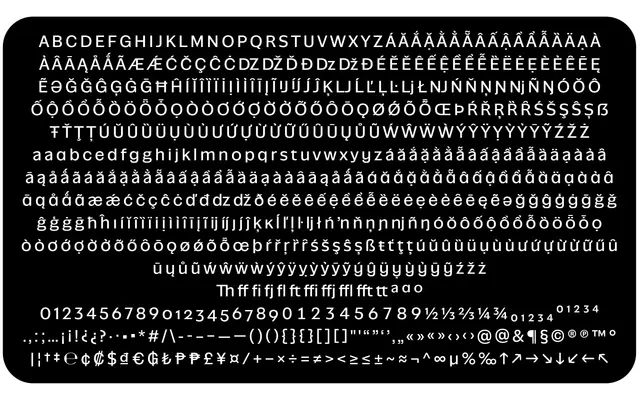
NaN SuperX Sans
NaN · Hugues Gentile, Fanny Hamelin, Fadhl Haqq, Léon Hugues, Jean-Baptiste Morizot, Luke Prowse, Florian Runge, Jolana Sýkorová · 2024
NaN SuperX Sans specimen from NaN
A hybrid humanist sans with grotesque detailing, drawn with a disproportionately large x-height as a tribute to phototypesetting-era typefaces, available in eight weights with italics across three optical sizes in both Latin and Arabic.
The sans half of NaN's SuperX system, it borrows its proportions and open counters from SuperX Serif while adopting closed neo-grotesque horizontal terminals on round letters, producing an unusual tension between the two traditions. Three optical sizes — Display, Headline and Text — allow the family to move from tight campaign headlines down to sustained body copy without losing its character. Arabic support runs alongside Latin across 482 and 33 language variants respectively, making it one of the more thoroughly engineered releases in NaN's catalogue.
Described by NaN as a hybrid humanist sans with grotesque detailing: open counters and vertical terminals from a humanist structure, combined with closed neo-grotesque forms on round letters such as /c /e /g with horizontal terminals.